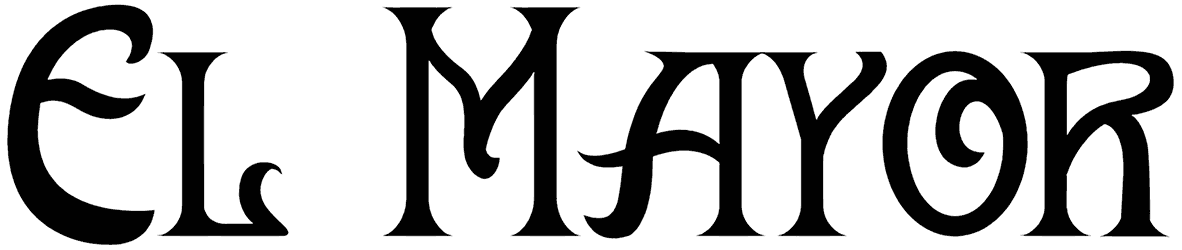
El Mayor Font
Simply turn the spotlight on all your coming illustrations, whether flyers, posters, movie titles, or book covers, utilizing the traditional vividness of this Mexican font that is not found anywhere. El Mayor comes across with an ancient effect to stun any viewers at the moment.
El Mayor is a decorative display font. The font has festival vibes.
It will turn any design project into a stand out.